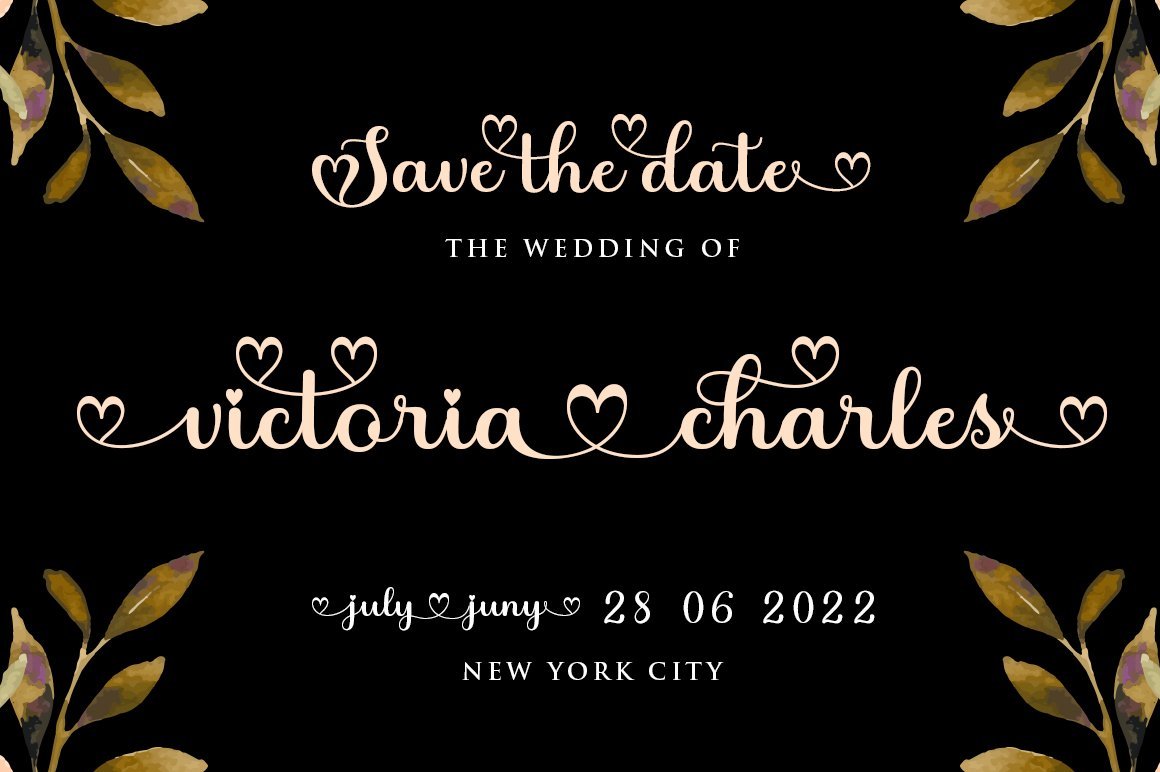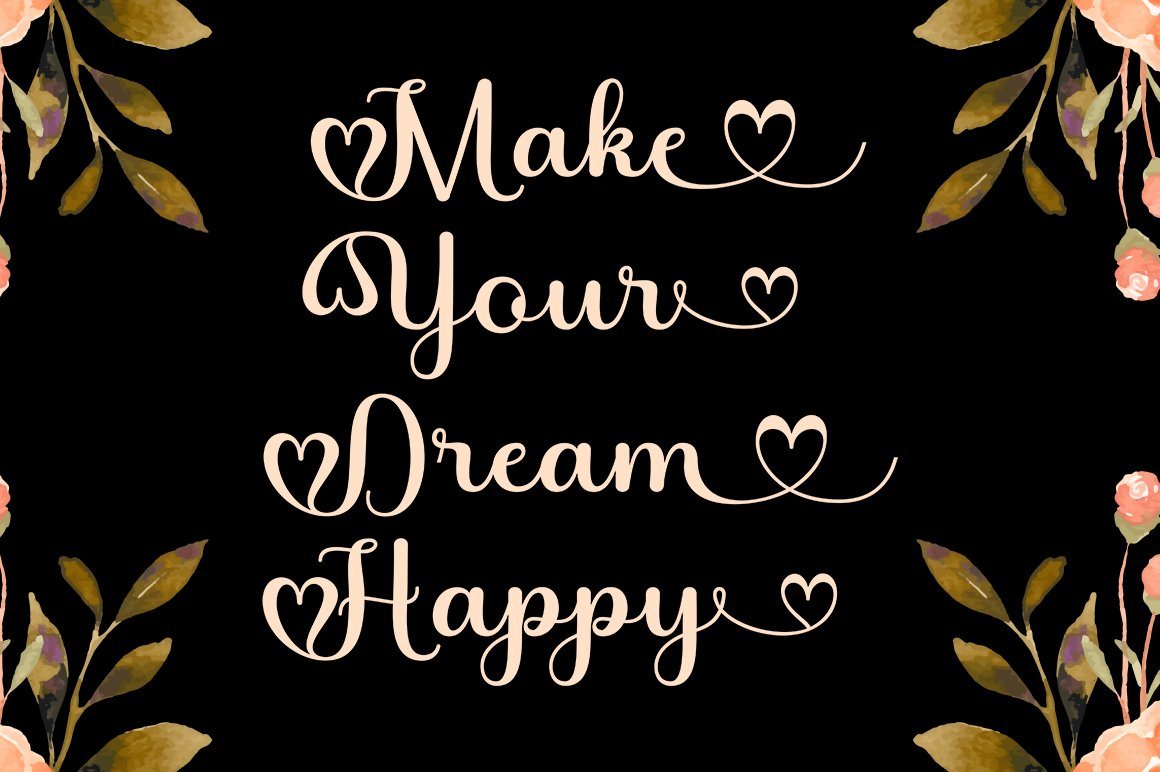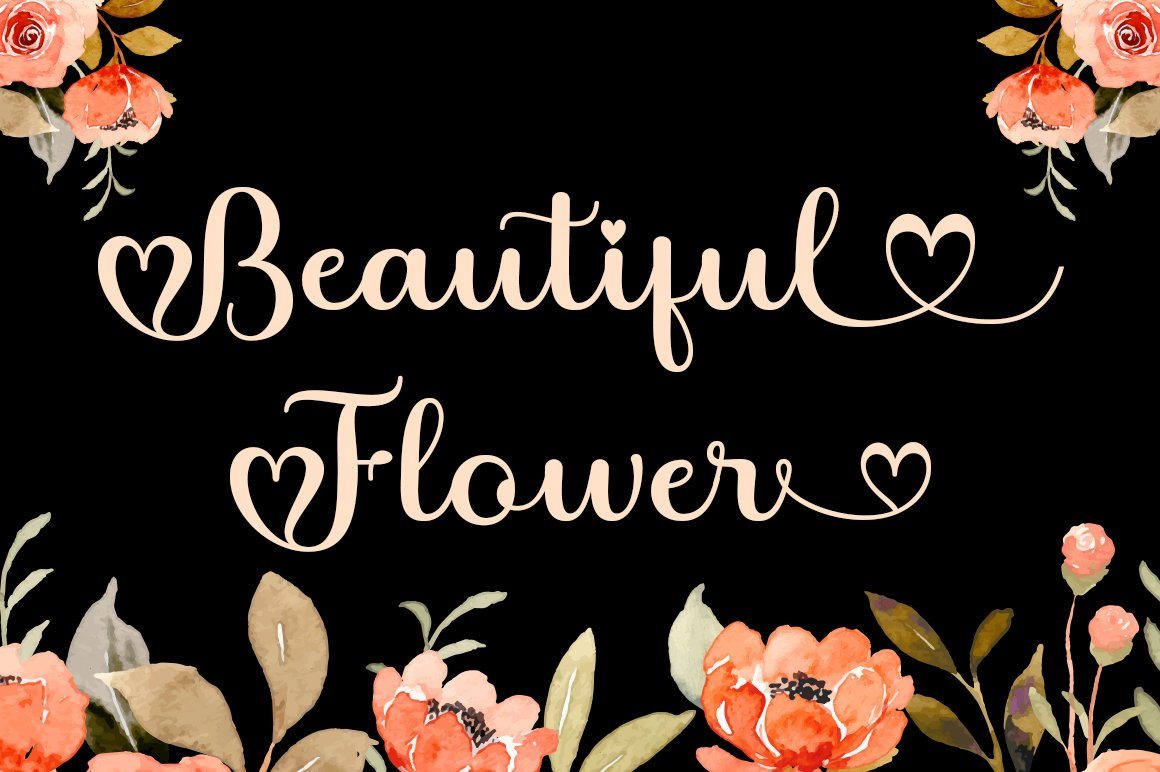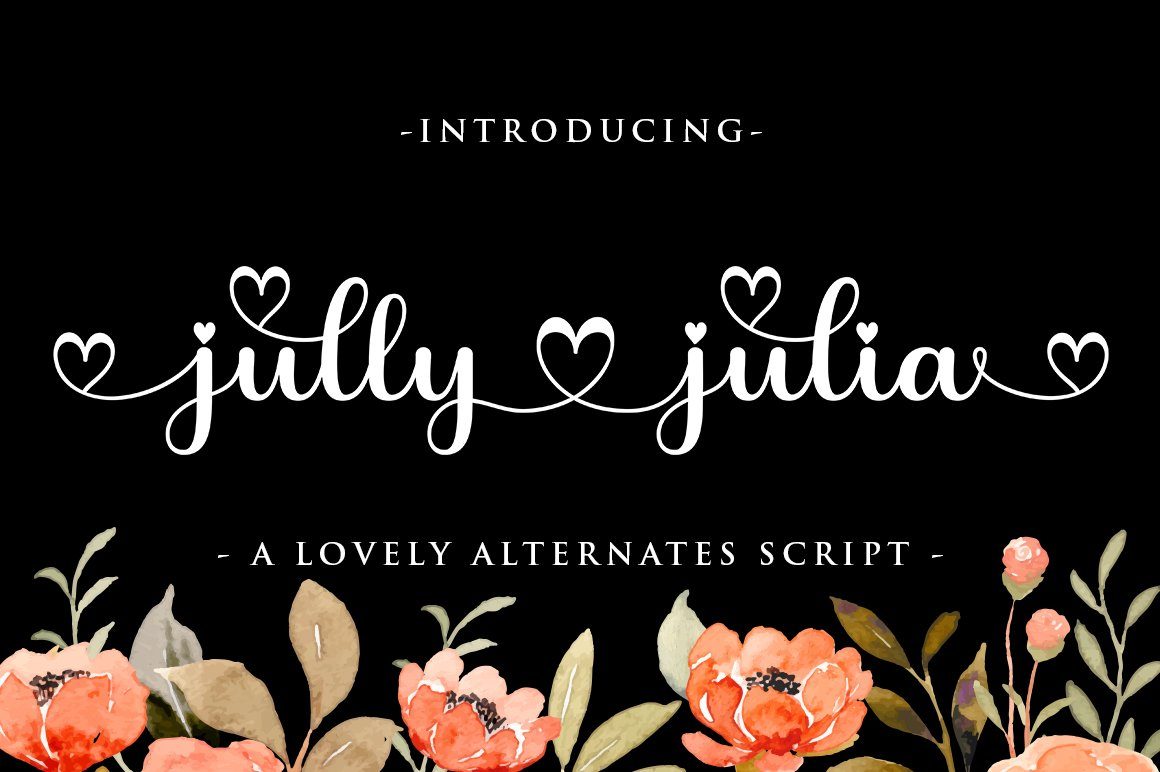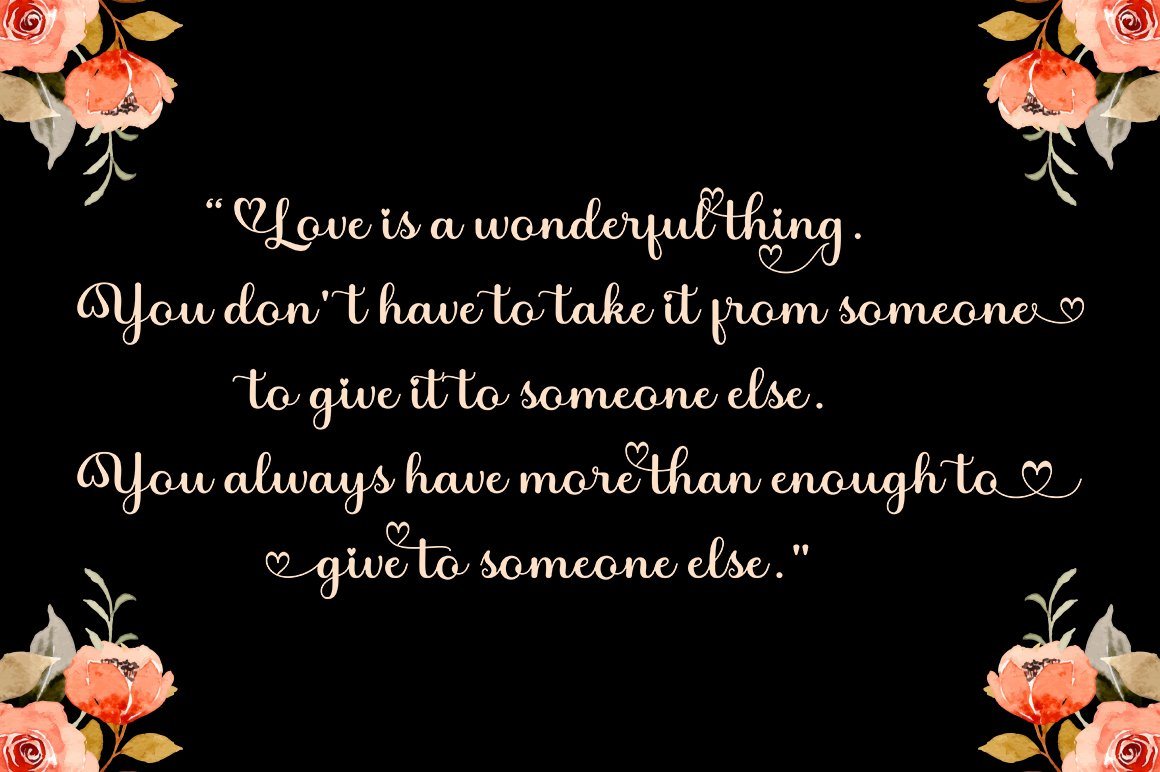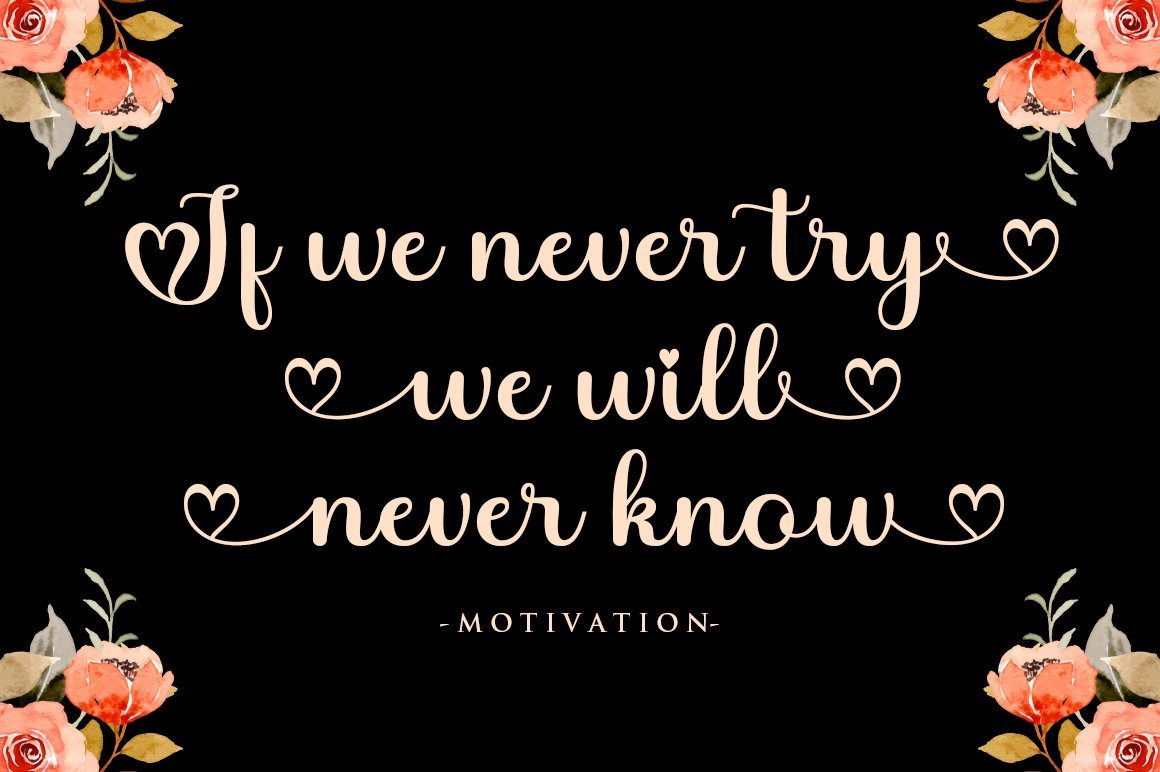
jully julia! Fresh modern handwritten font with decorative characters and dancing baseline. So beautiful on invitations such as crafts, greeting cards, branding materials, business cards, quotes, posters and other design concepts. Features: Ligature Style set Basic Latin A-Z and a-z Number International symbols include punctuation fastener Thank you.